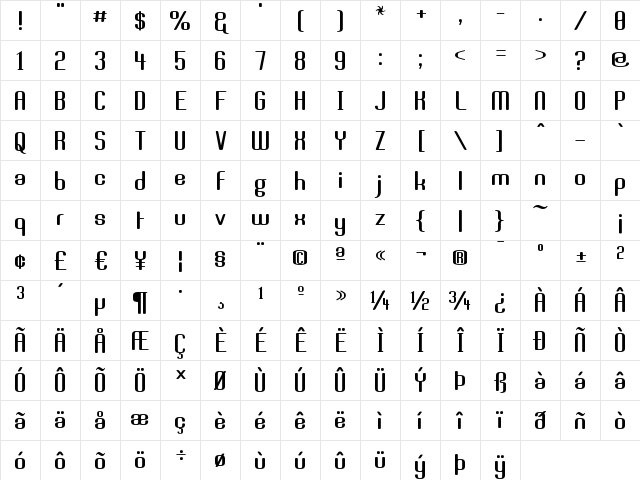
Brassiere Regular
Designer: Graham Meade
Design Context for Brassiere
Brassiere is a composed and adaptable typeface that performs quietly and consistently across a wide range of design contexts.